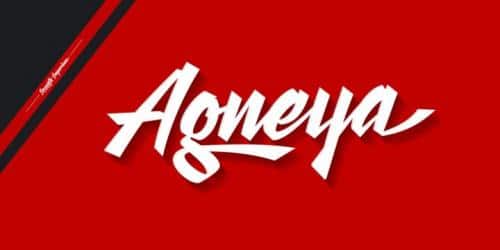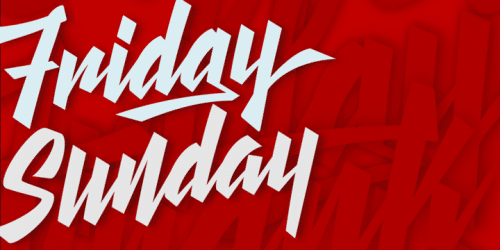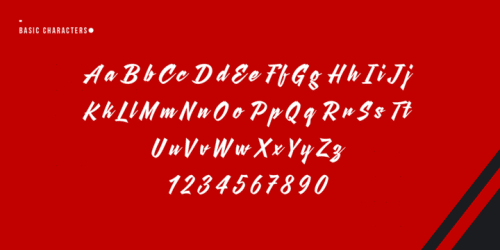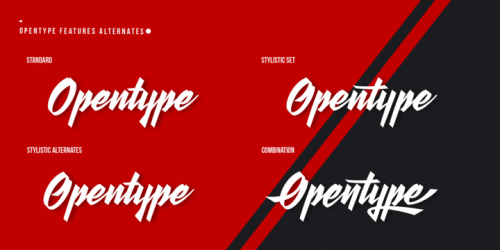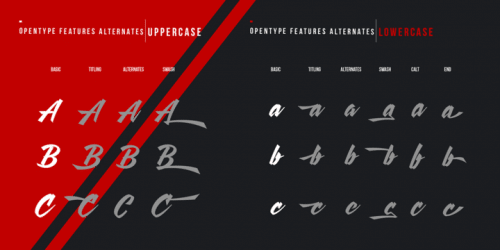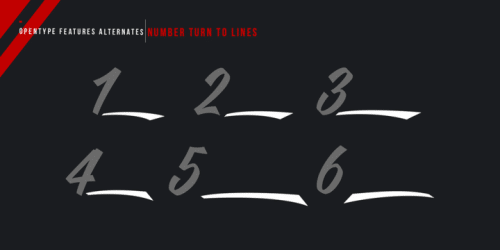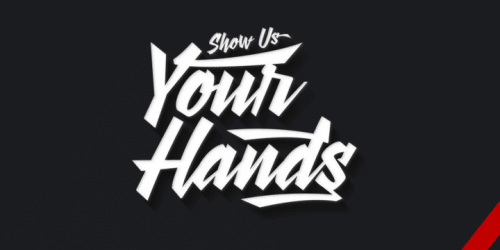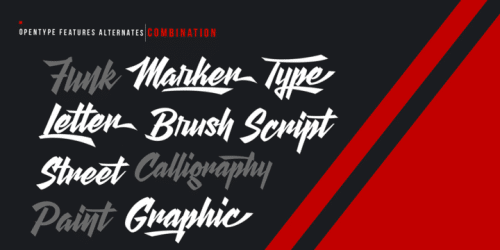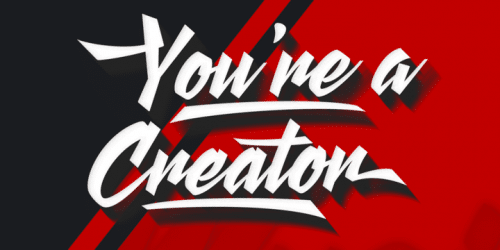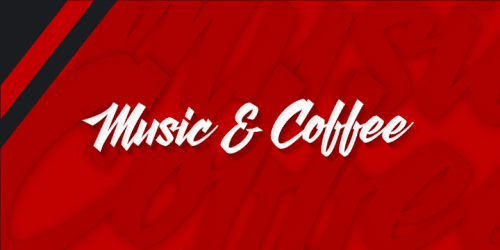
Agneya is calligraphy script font, inspired by urban street art. Equipped with opentype features. Stylistic alternates, swash and more 600 glyph.
It is make easily to create such as Signpainter logo and various purposes. Just open the Opentype Alternates and choose The alternates that fit best, and you can play with your creation to make your unique designs.
- Designer: Cucu Supriyadi